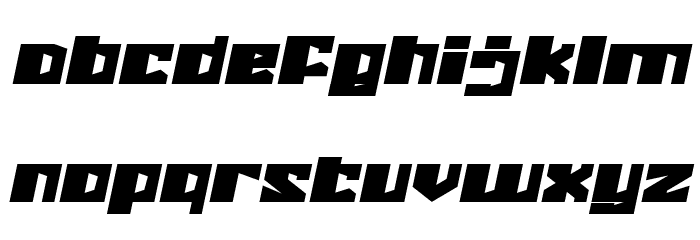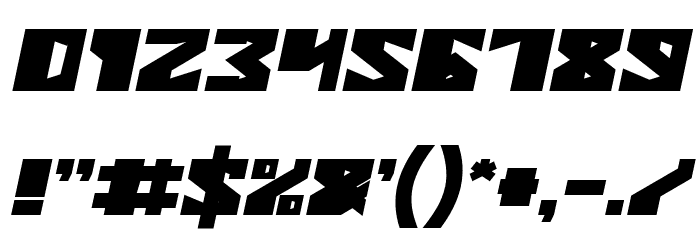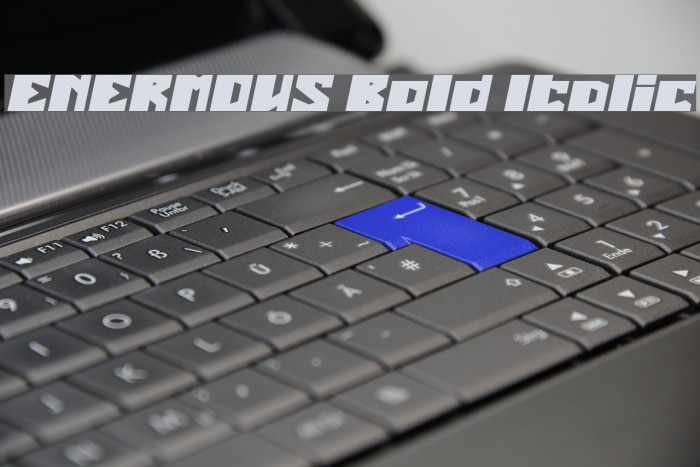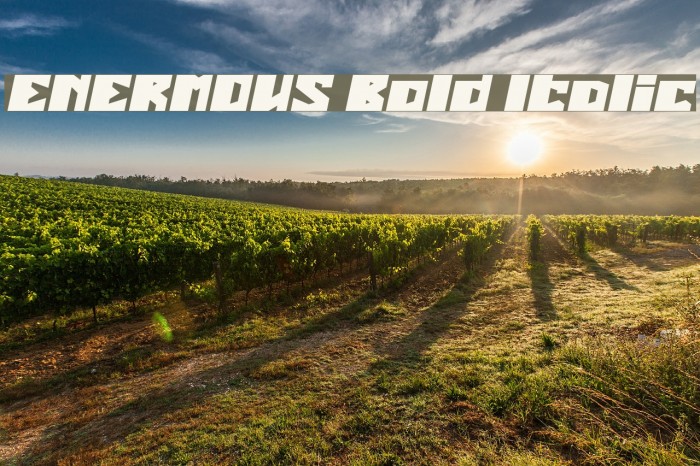
ENERMOUS Bold Italic Font
This font features a bold and dynamic style with a strong italic slant, giving it a sense of movement and energy. The characters are designed with sharp angles and geometric shapes, creating a modern and edgy appearance. The uppercase and lowercase letters maintain a consistent design, with a slightly condensed width that enhances the boldness of the font. The numbers and special characters are crafted to match the angular and robust style of the alphabet, ensuring a cohesive look across all elements. This font's unique design makes it stand out, perfect for projects that require a striking and contemporary aesthetic.
A bold, italic font with sharp angles and a dynamic, modern style.
- Proposed Projects: Ideal for branding, posters, headlines, and any design needing a bold, modern touch.